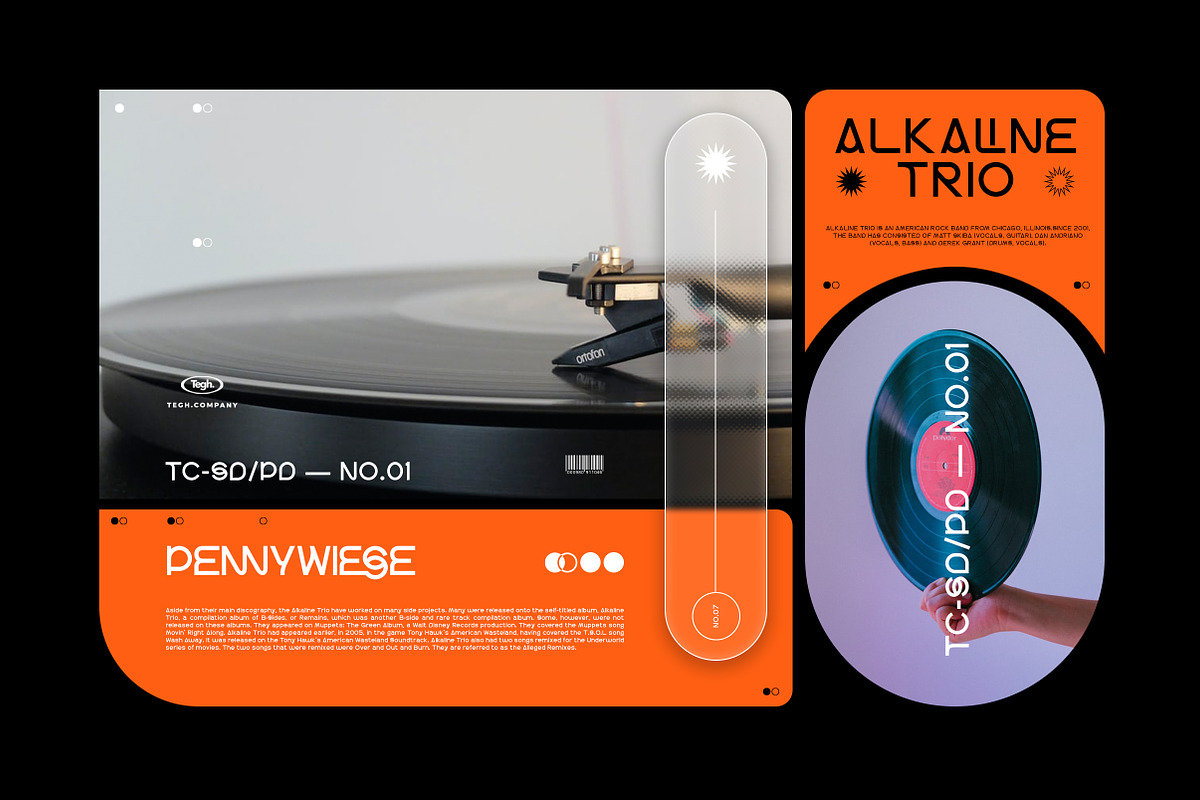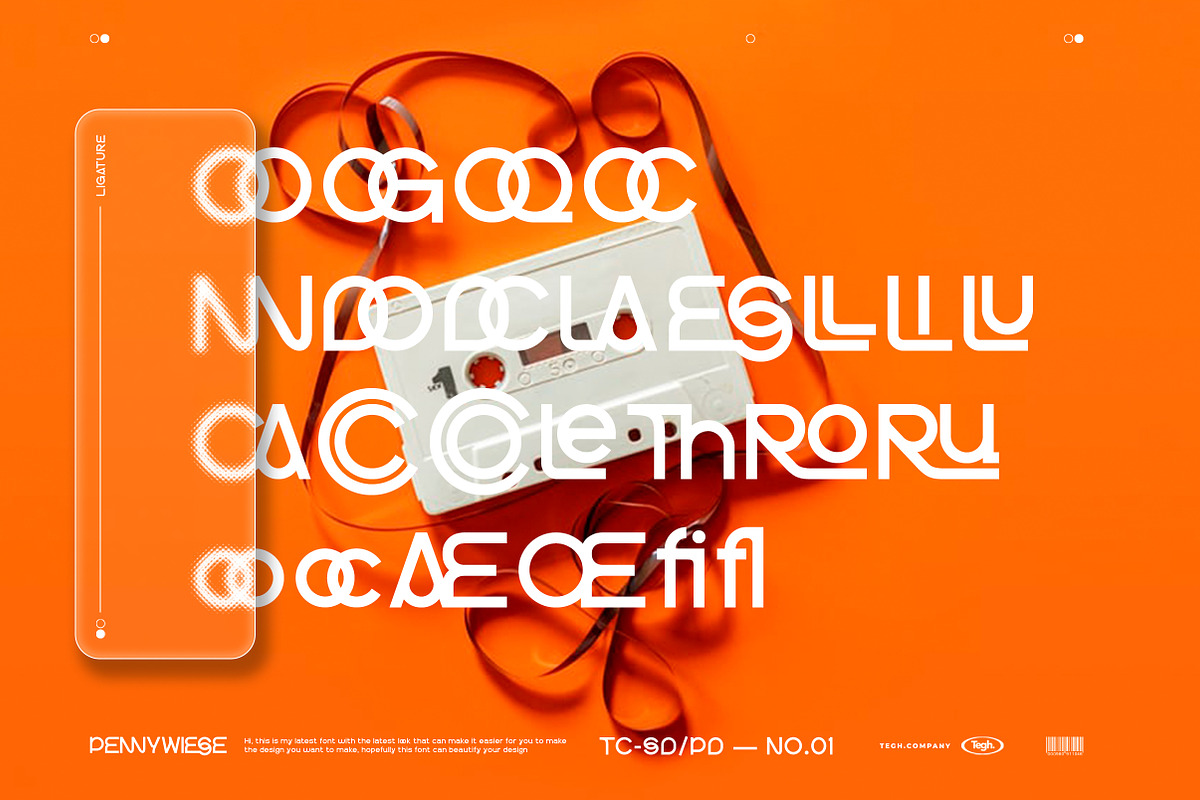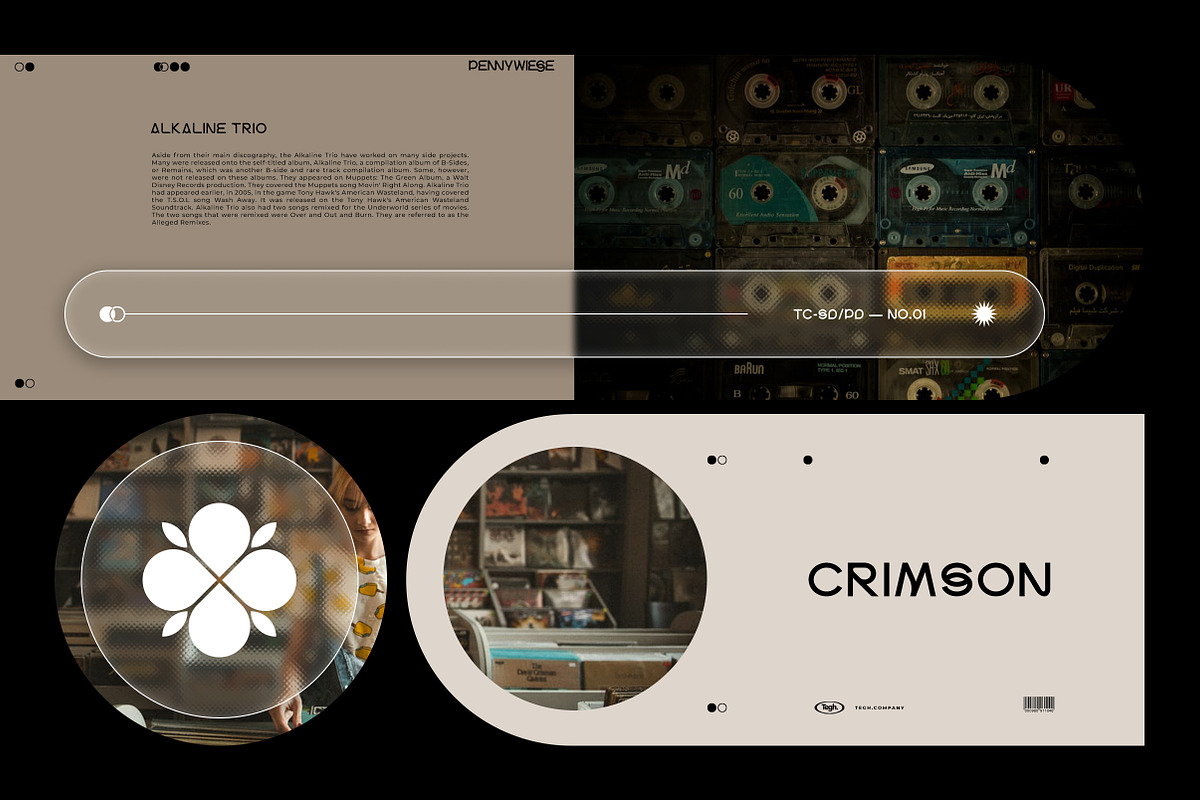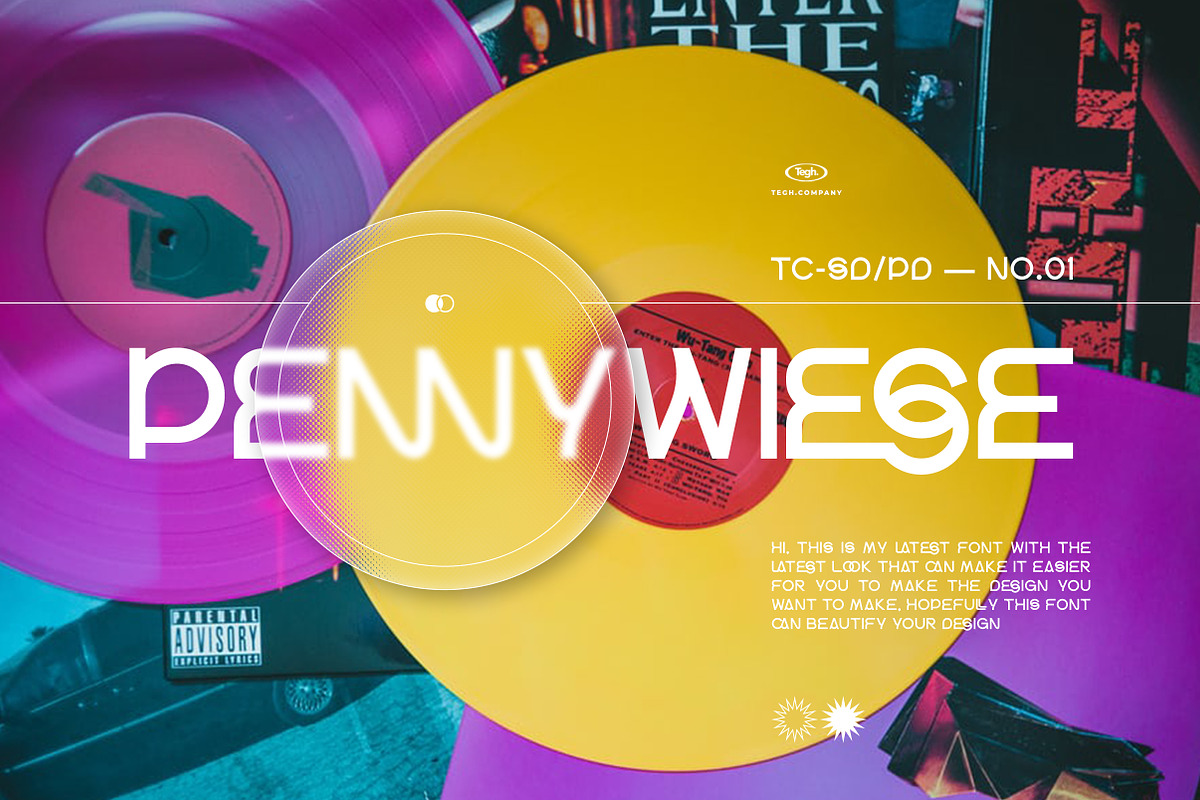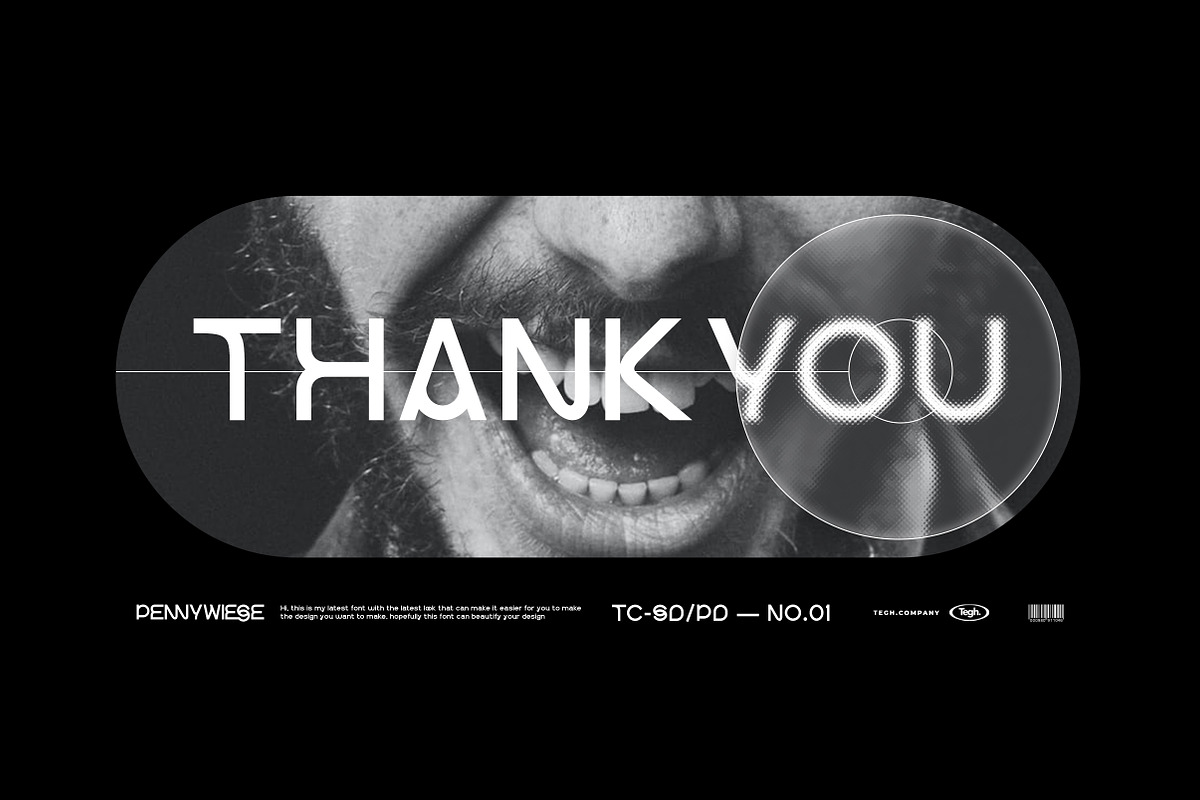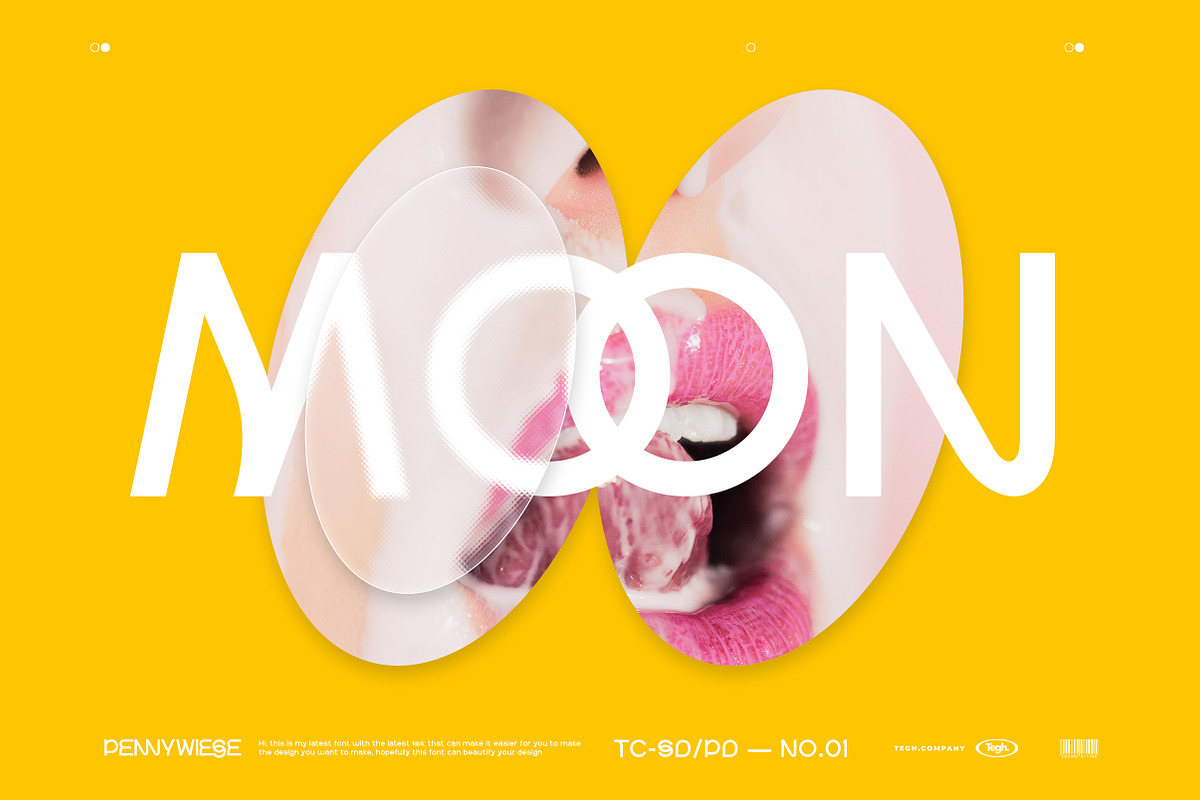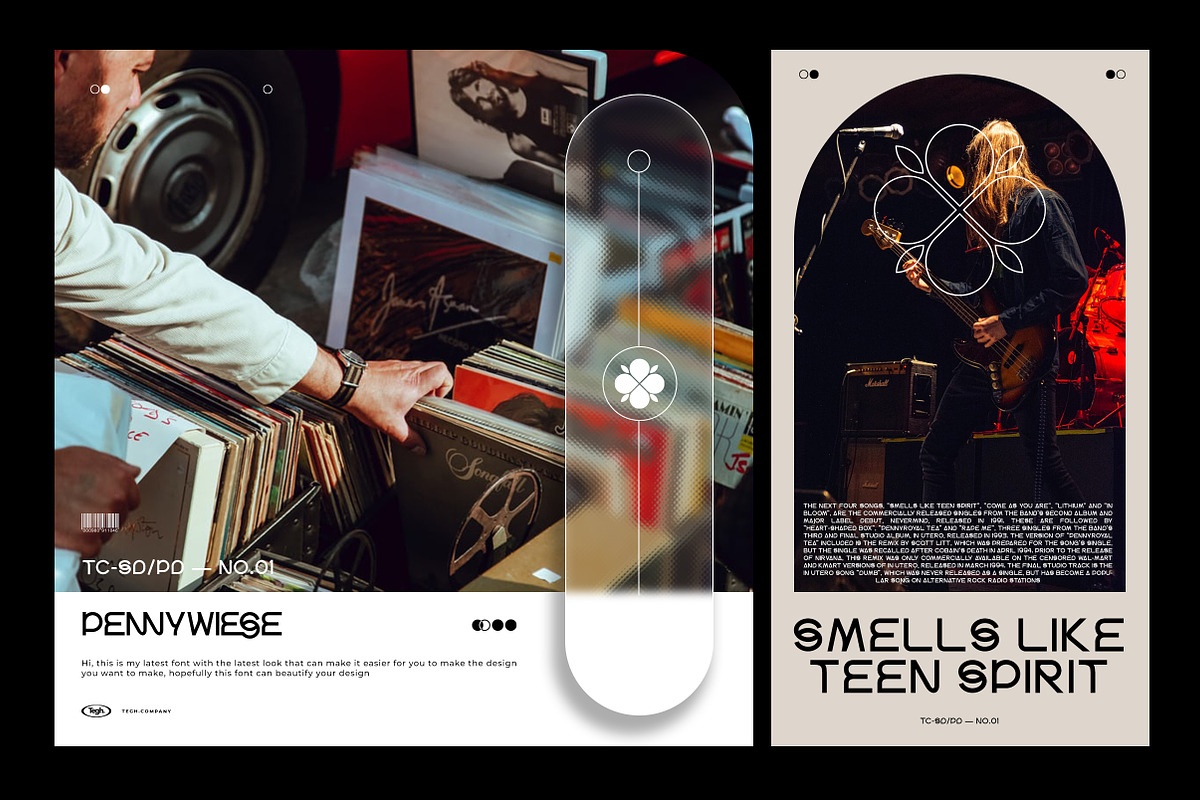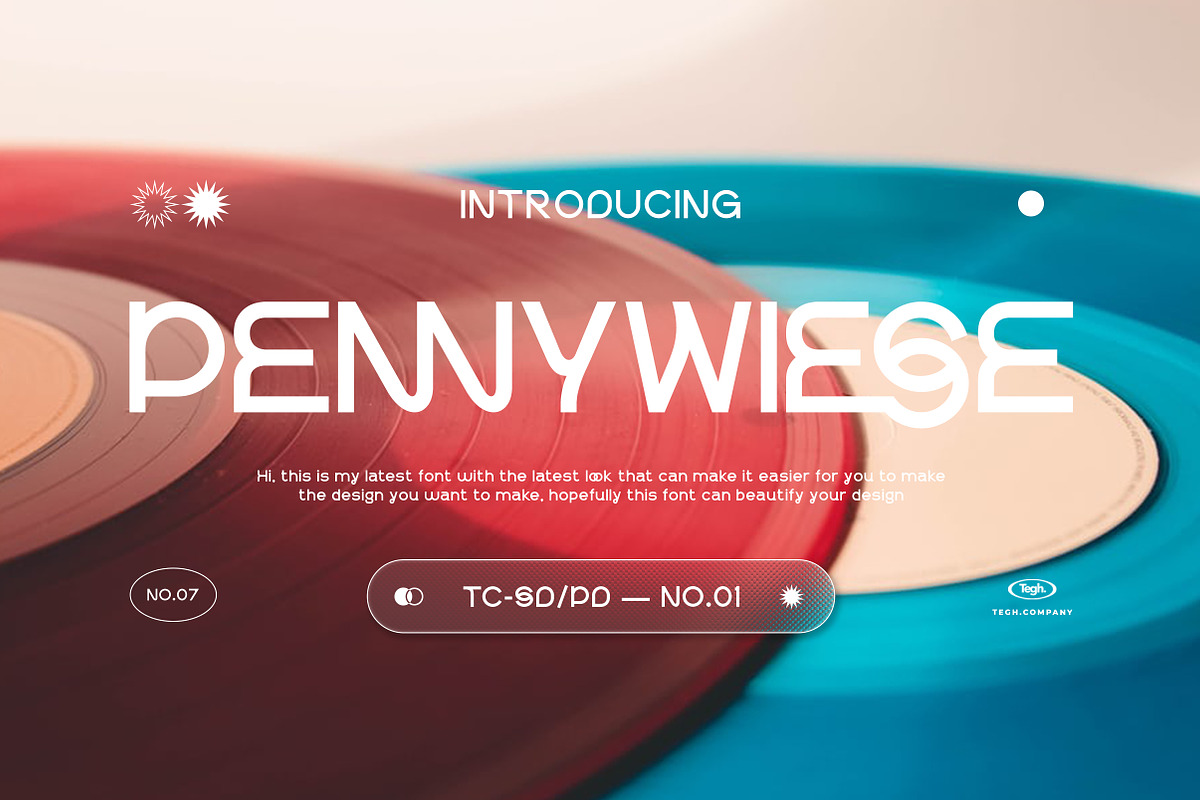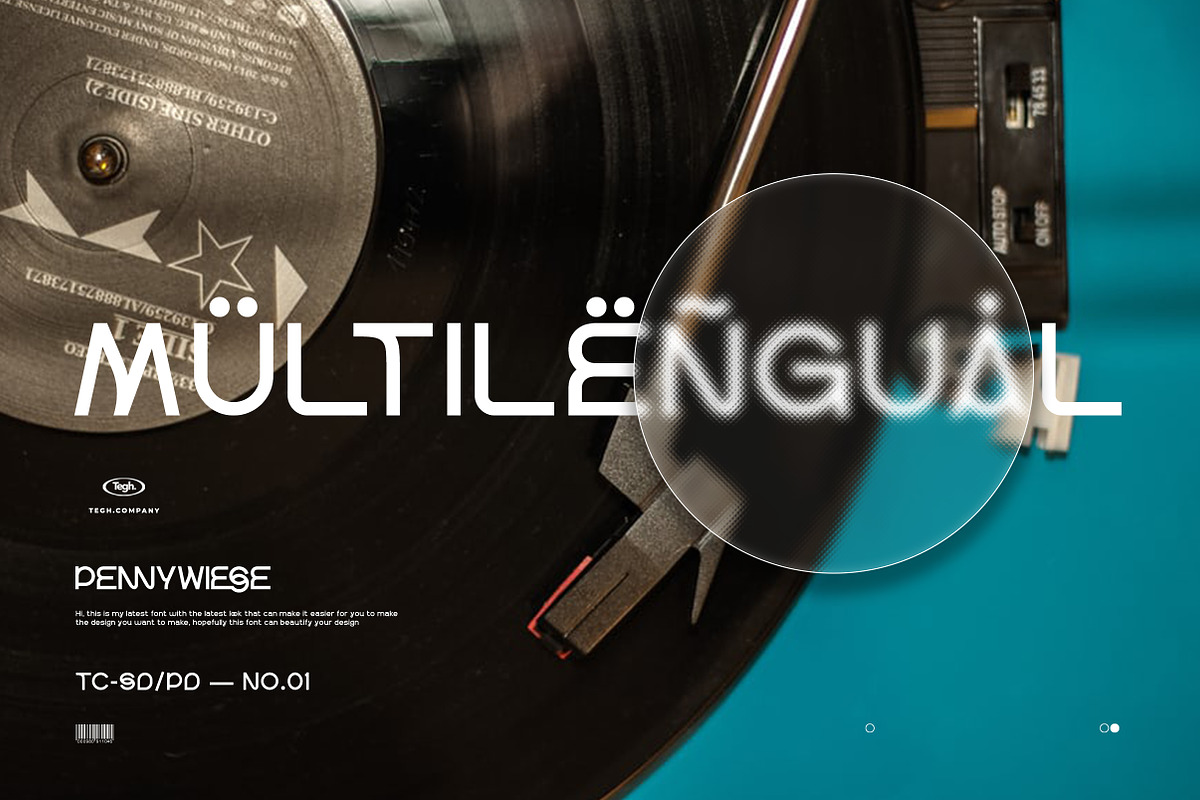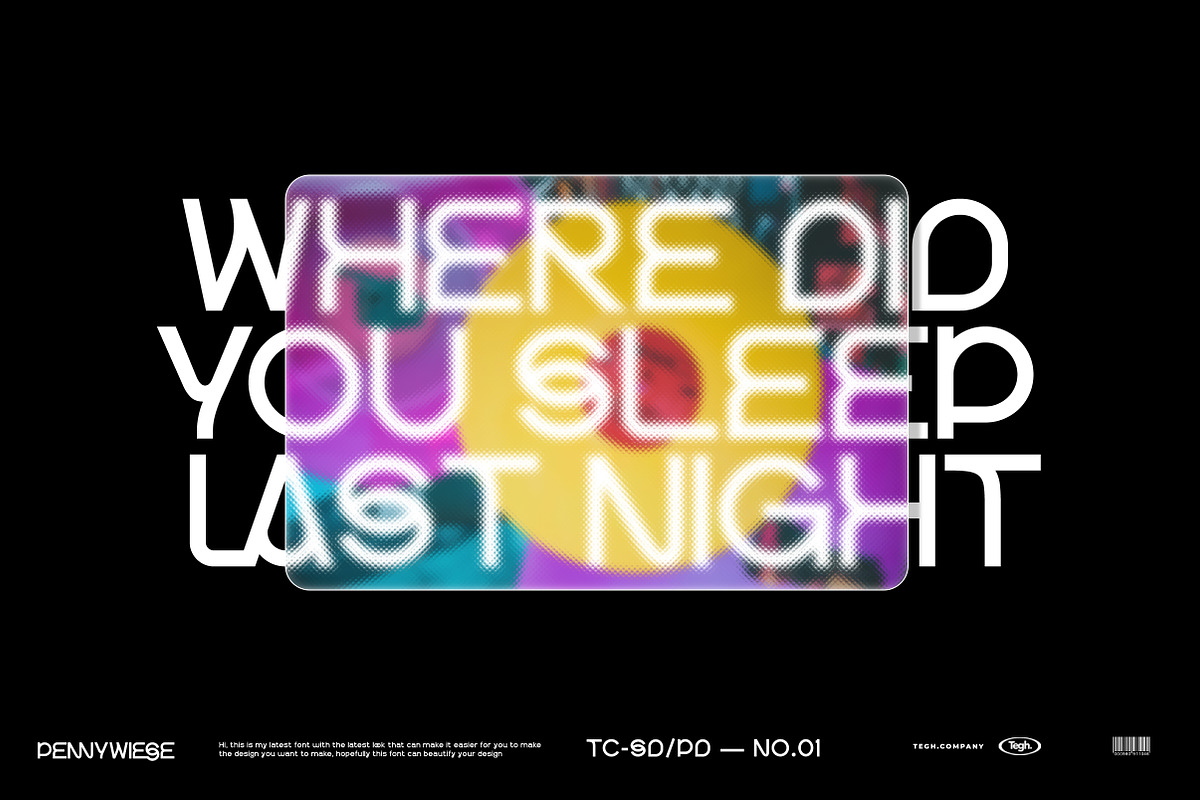
Pennywiese sans display
pennywiese sans display is my latest product that will make it easier for you to make poster designs or something else I hope this font product can help you in beautifying your designs